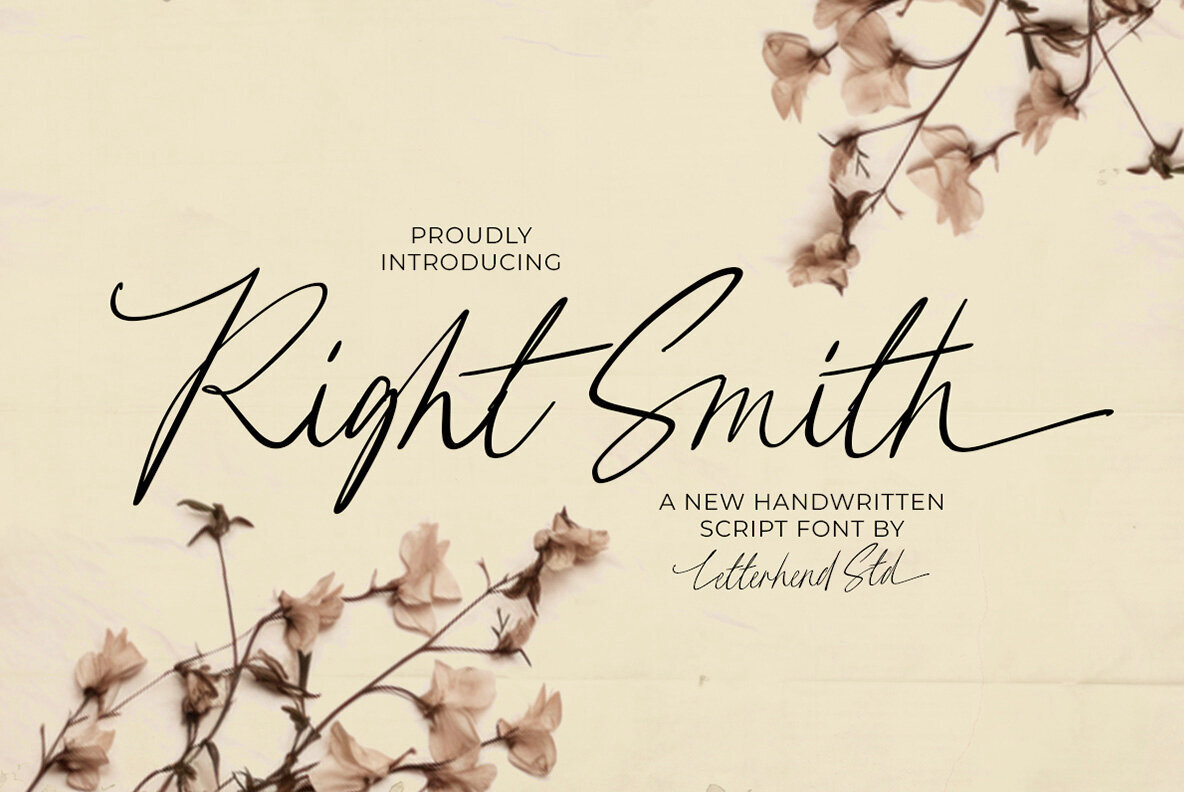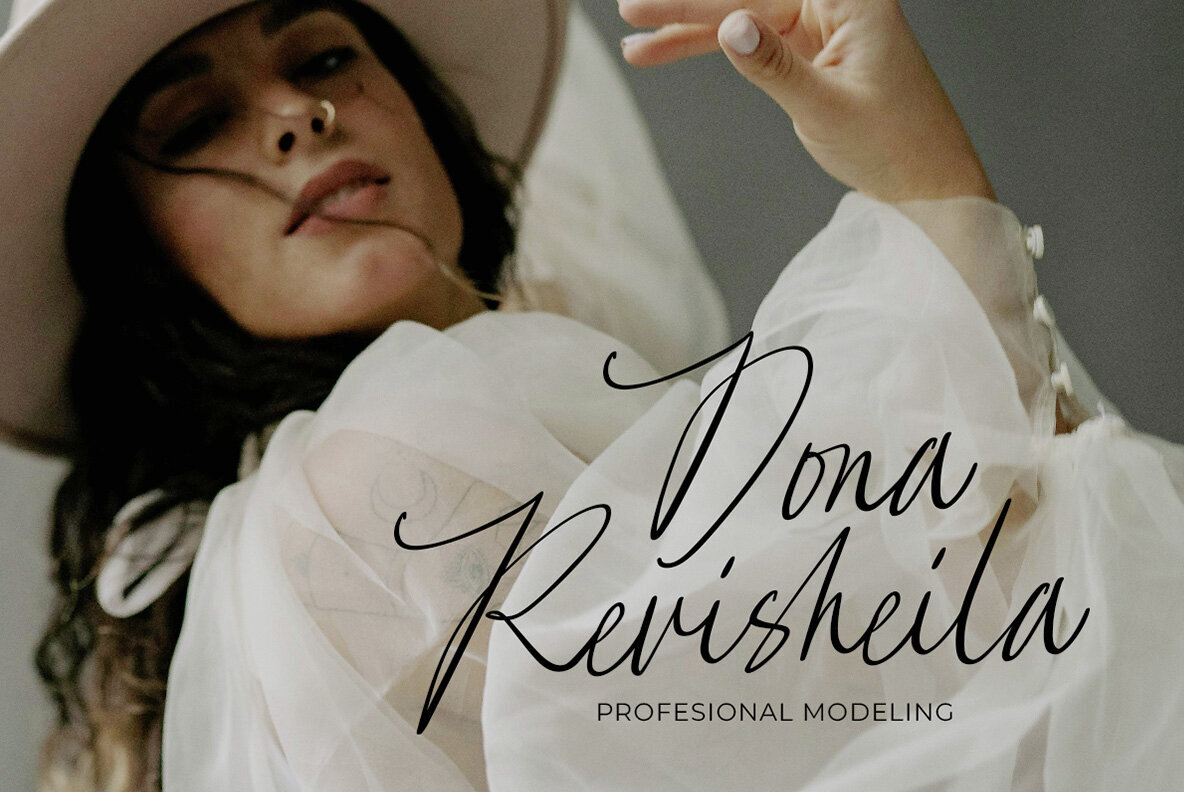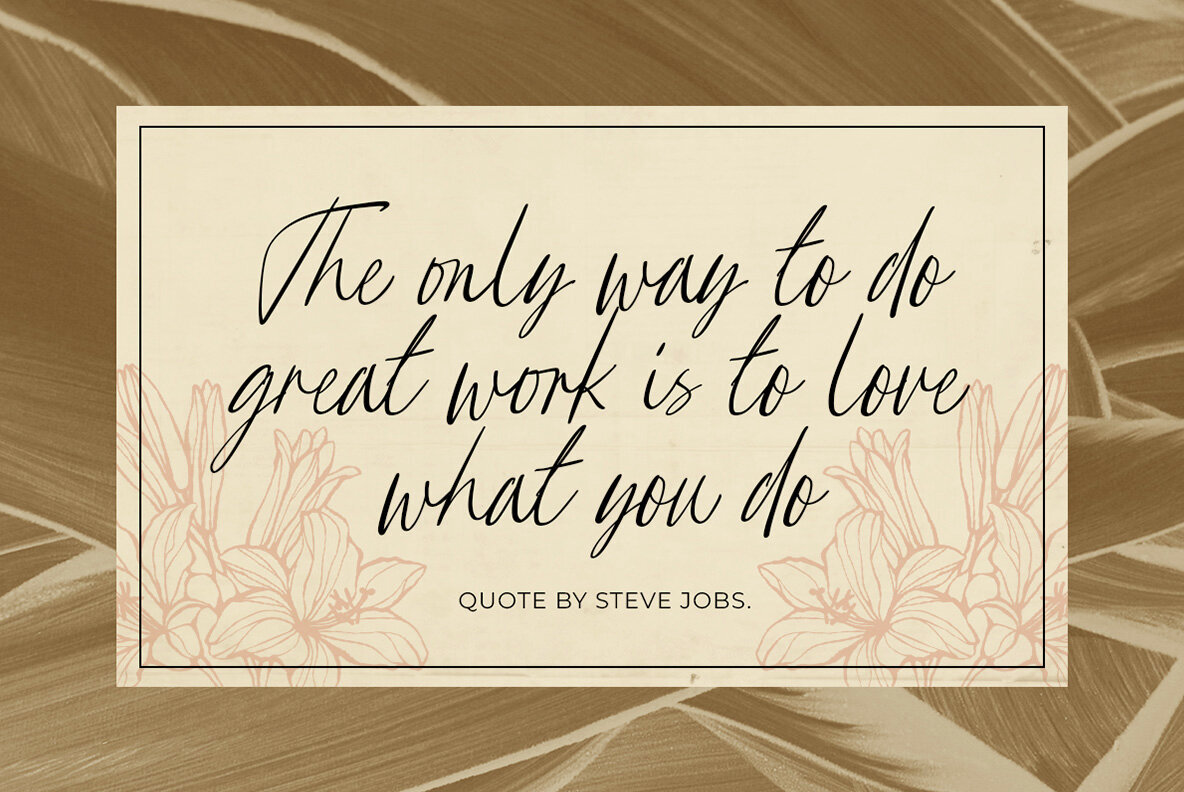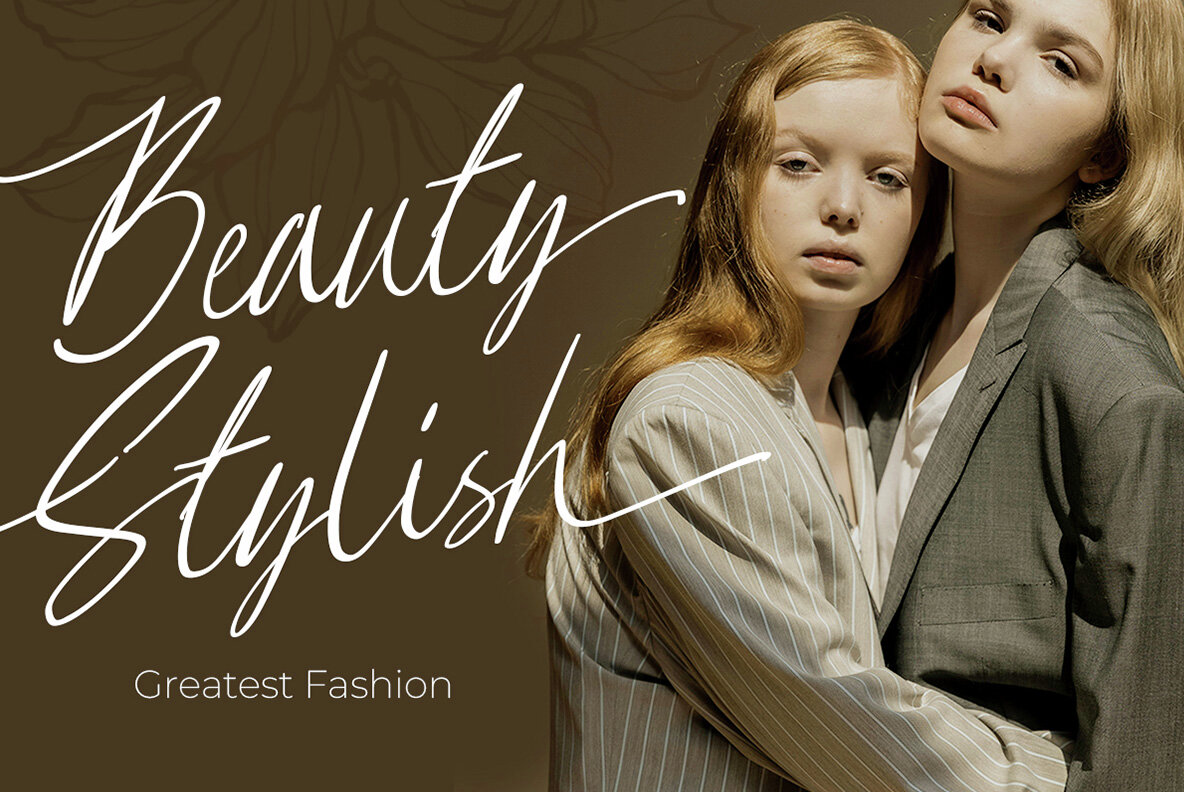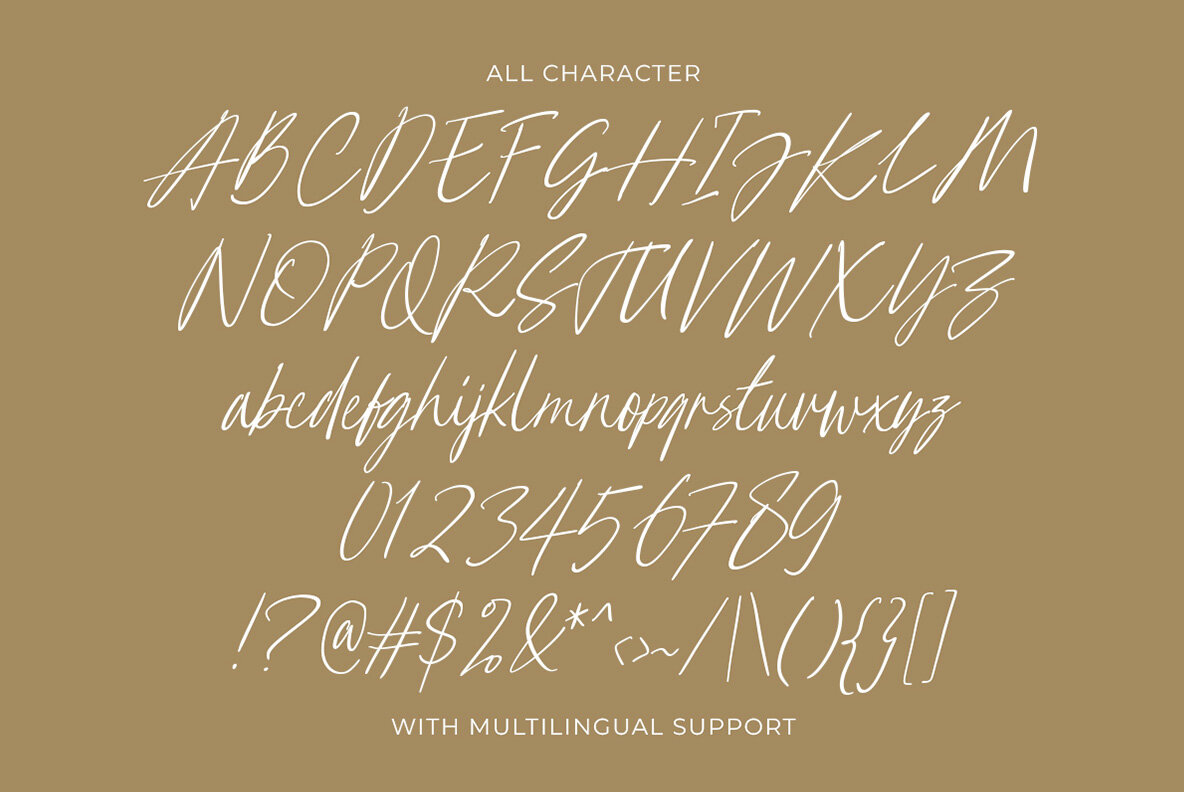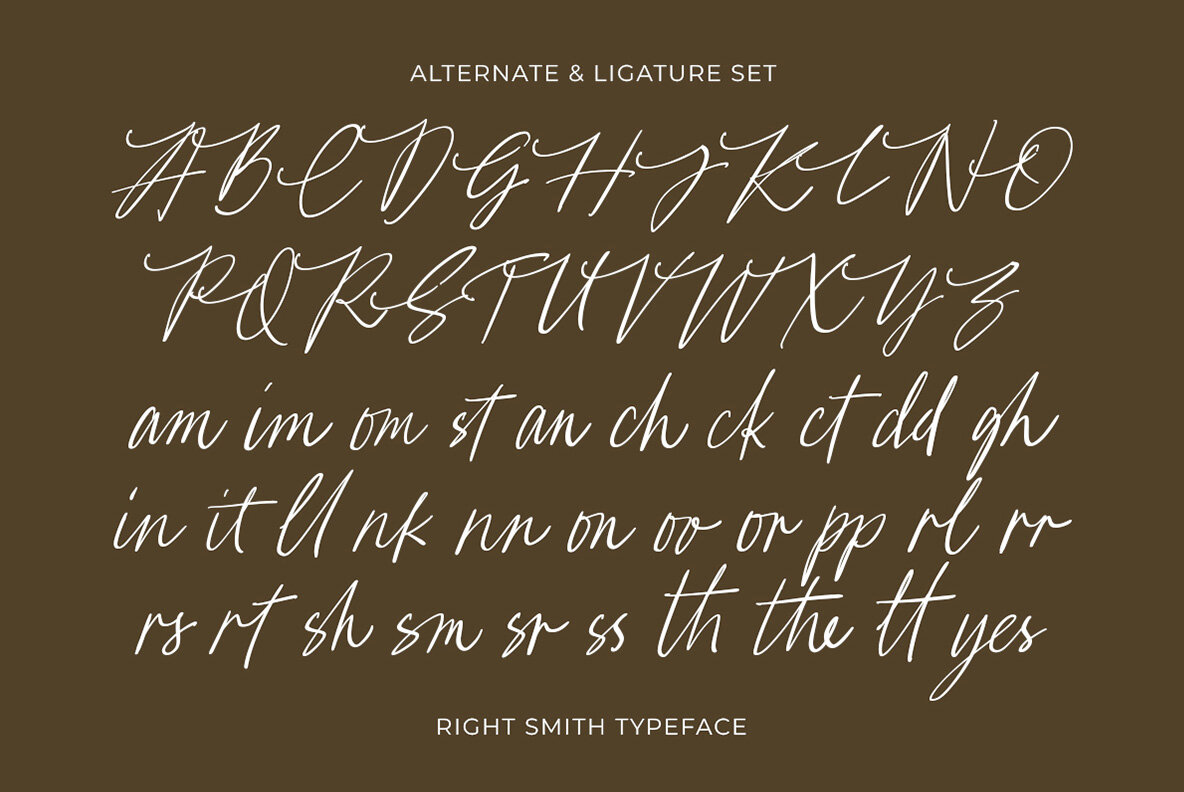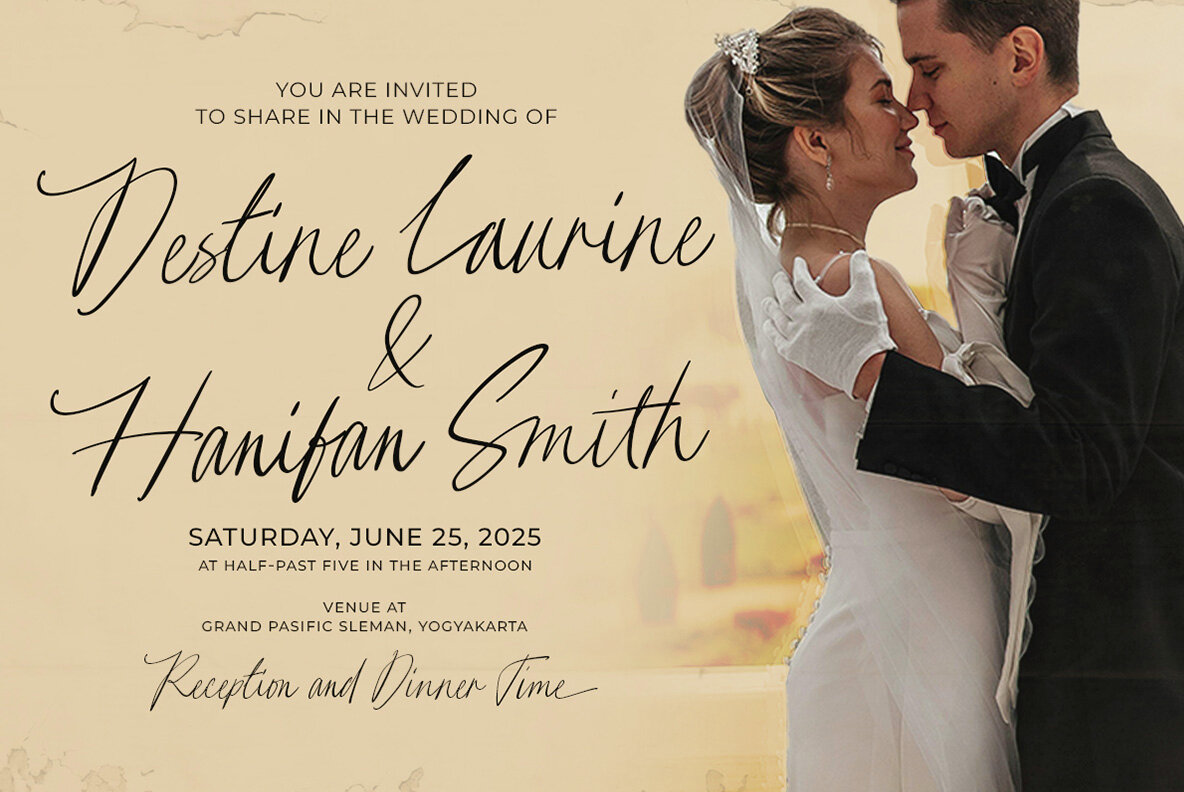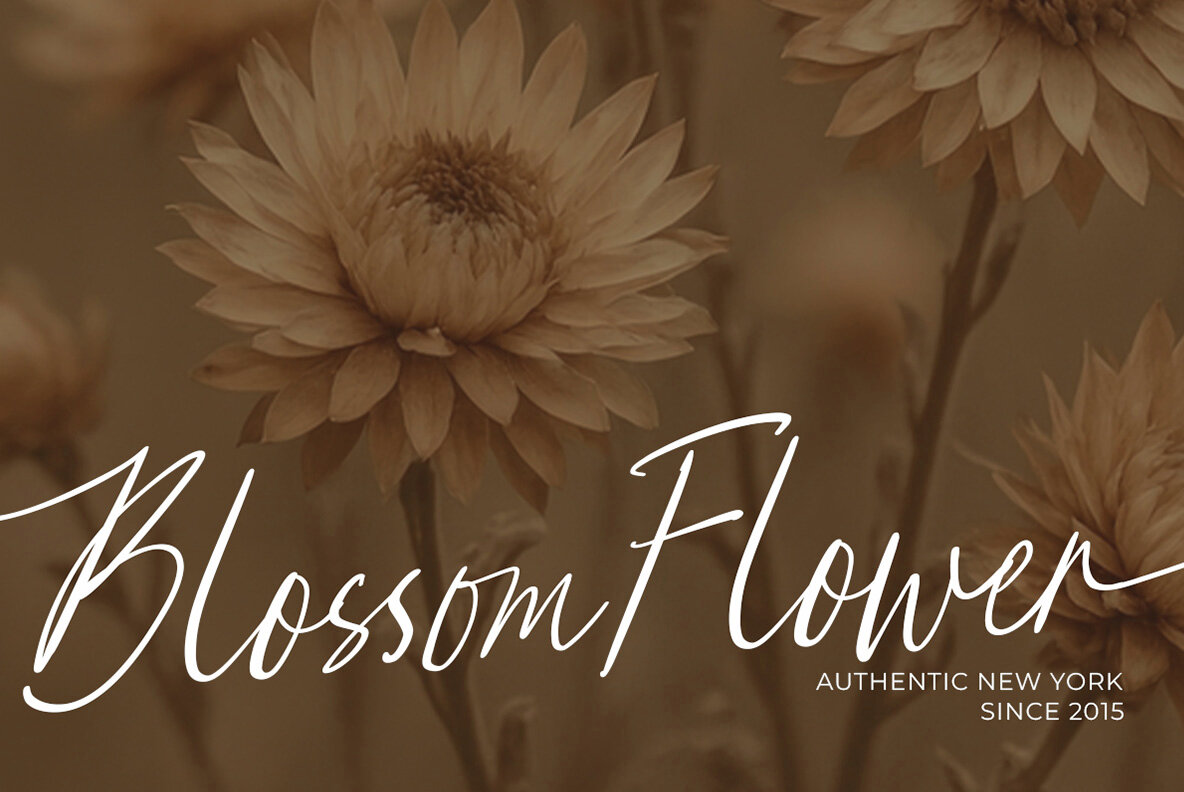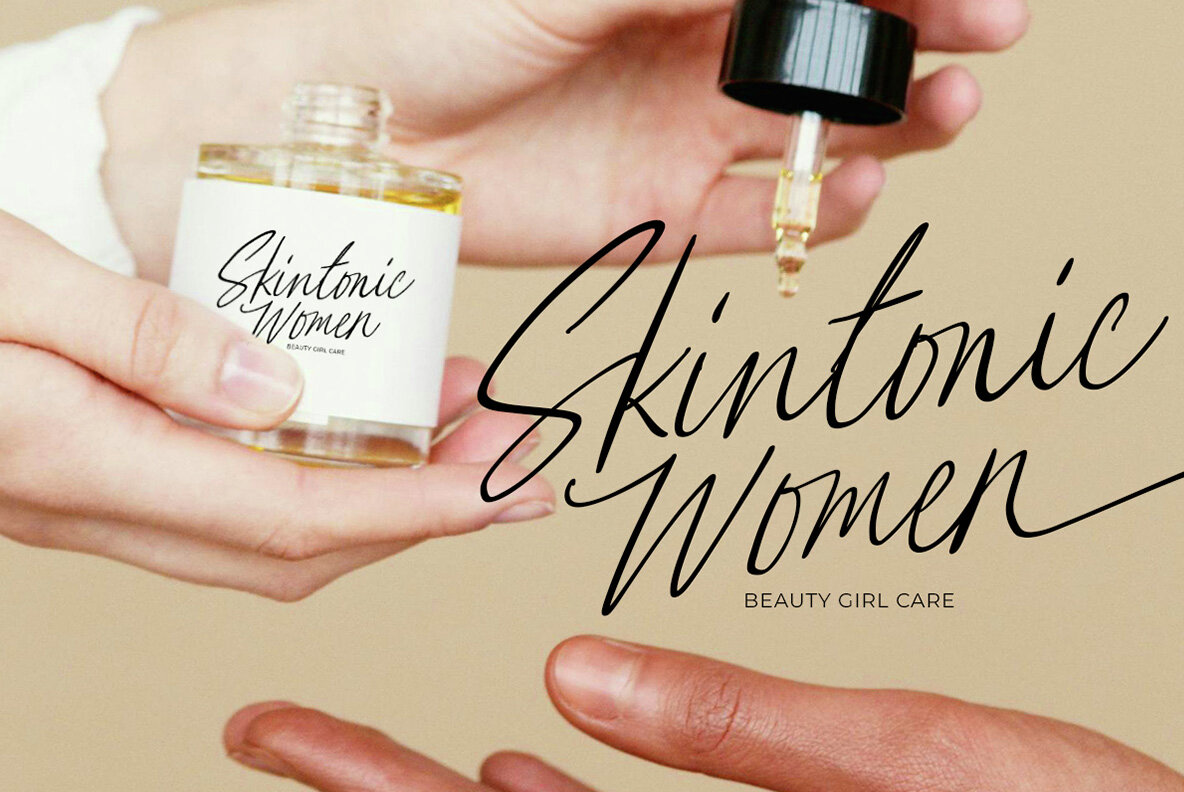
Right Smith Font
Right Smith Regular
Embodying elegance in its simplest form, the Right Smith font offers a chic handwritten style with a natural, fluid motion. Its sleek swashes and informal strokes make it an ideal choice for modern branding, wedding invitations, logos, and social media quotes. This font introduces a sense of personal sophistication to any project, adding a polished yet intimate touch to your message. Features: For optimal use, we suggest utilizing programs that support OpenType features and Glyph panels, such as Adobe’s suite and Corel Draw. This will enable you to explore and apply all the glyph variations beautifully.Right Smith: A Handwritten Script With Elegant Flow